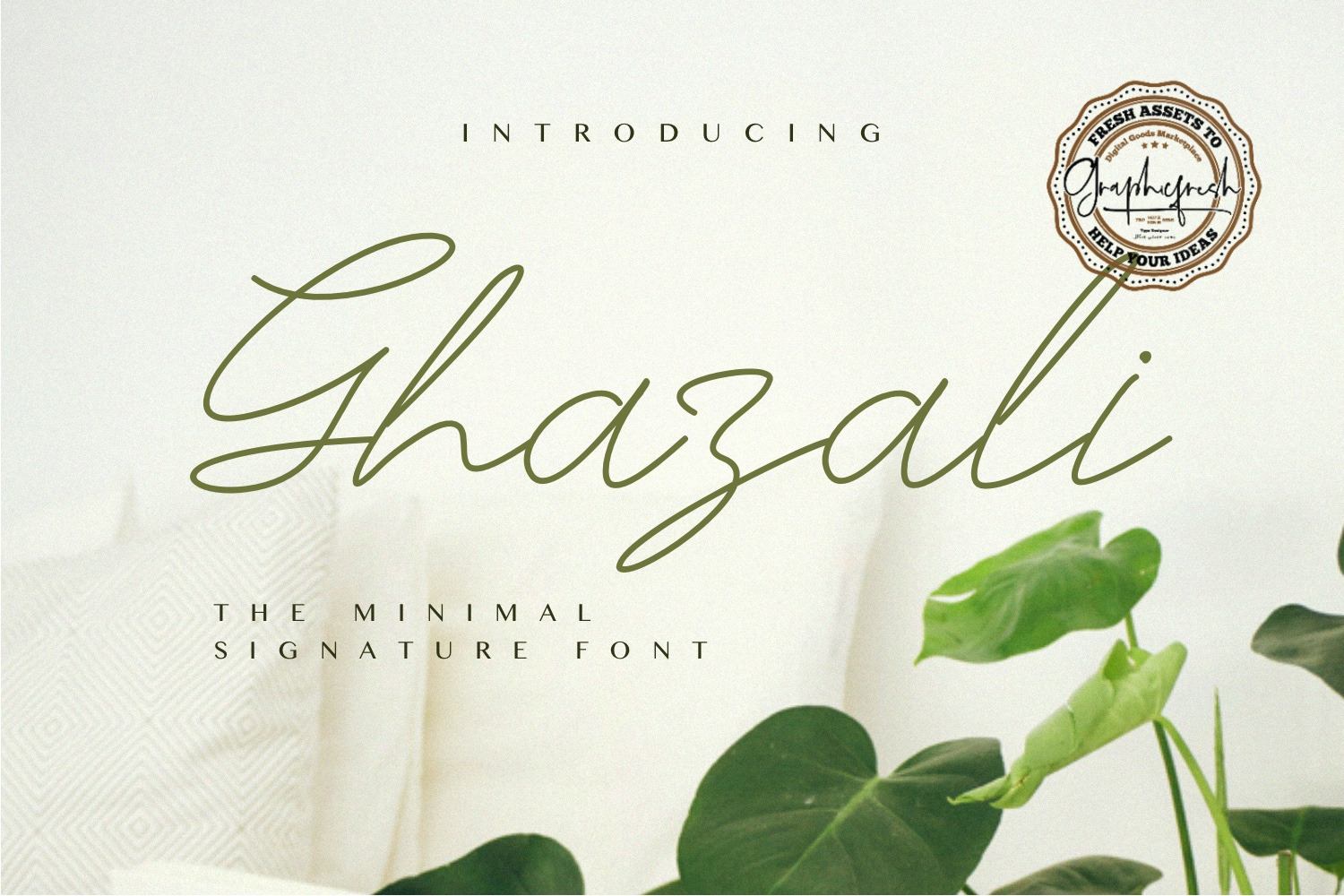
Ghazali - The Minimal Signature Font
IntroducingGhazali - The Minimal Signature Font. It comes with an elegant and feminine style which is perfect to make any design stand out! This font is perfect for branding, wedding invites, magazines, mugs, business cards, quotes, posters, and more.
Ghazali Type Features:
- Suitable for Headlines, Logotypes, Signs, Posters, Letterhead, T-Shirt and many more.
- Support International Language